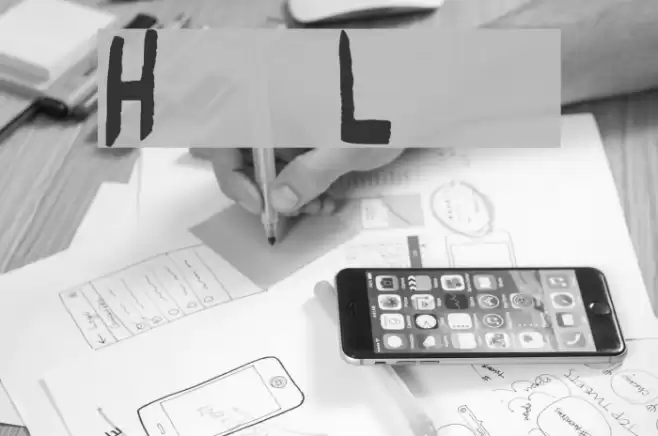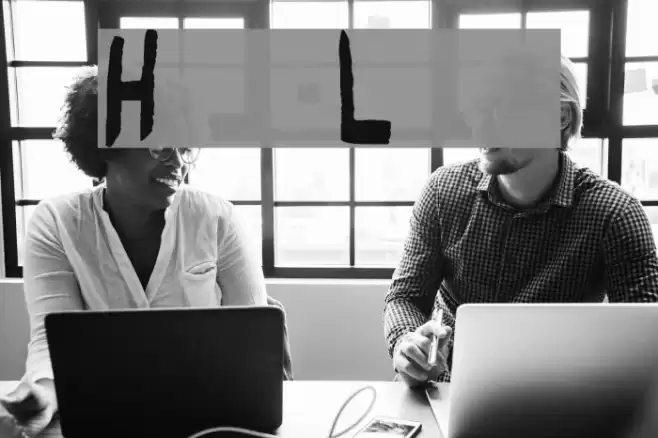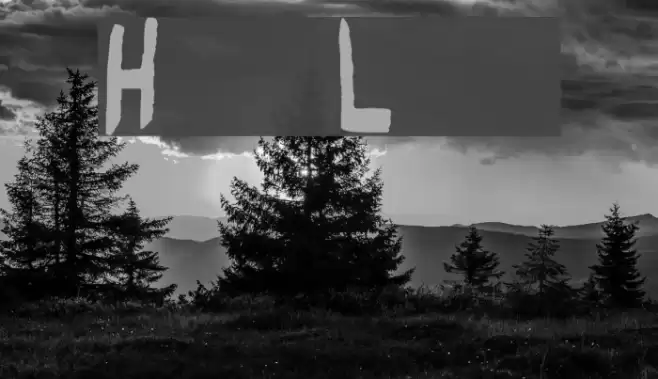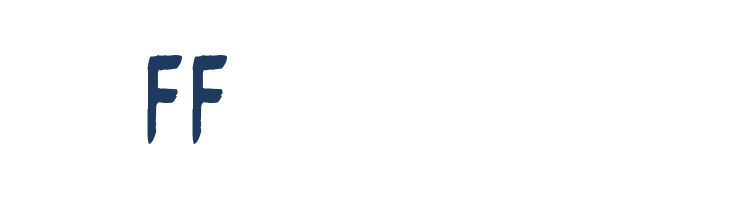
HighLight Font
HighLight Description
This font features a bold and rugged style with a hand-drawn appearance. The characters are uneven and irregular, giving it a raw and organic feel. The strokes are thick and vary in width, contributing to a high contrast look. The overall design is reminiscent of graffiti or street art, with a playful yet edgy vibe. The uppercase letters are distinct and maintain a consistent height, while the spacing between characters is relatively tight, enhancing the compact and impactful nature of the font. This style is well-suited for projects that require a bold statement or a creative, unconventional touch.
A bold, hand-drawn font with a rugged, graffiti-like style from Uncategorized fonts.
- Proposed Projects: Ideal for street art designs, posters, album covers, and creative branding.
- Character Spacing: Tight